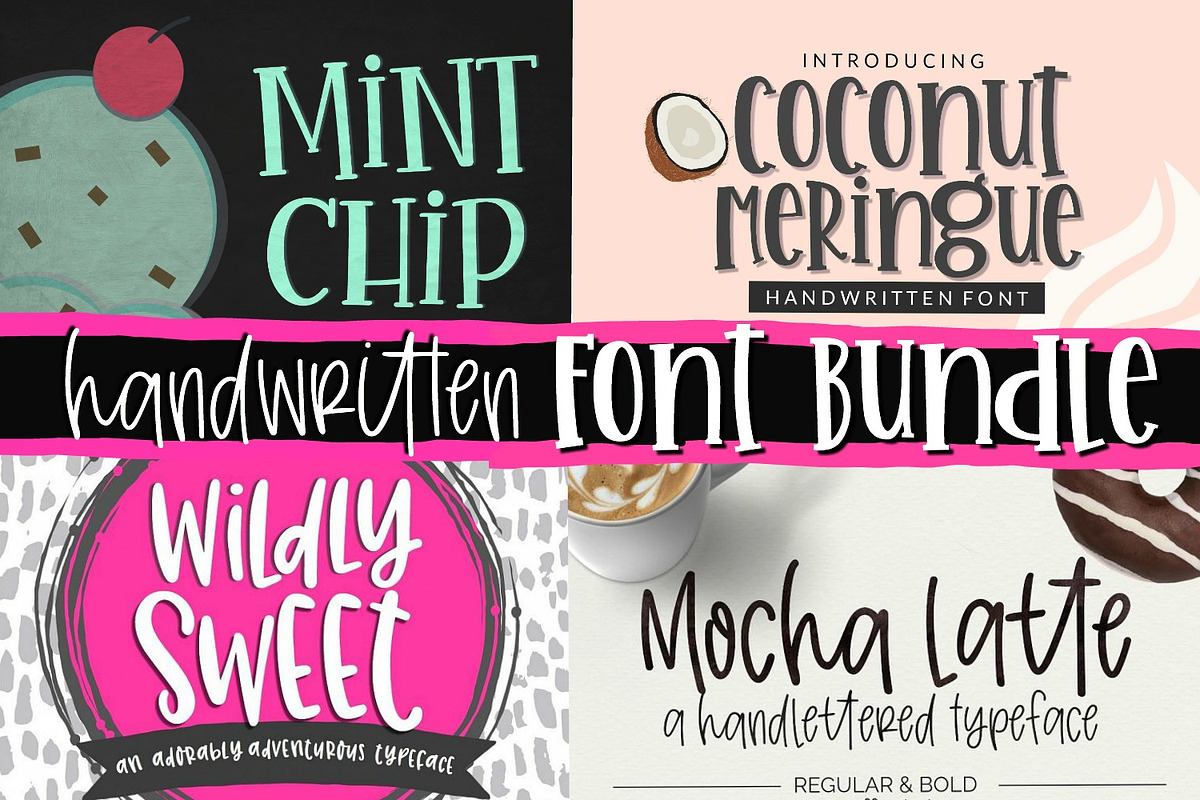
Handwritten Font Bundle Mini Pack Free Download is a delightful collection of charming and expressive script fonts, perfect for adding a personal touch to your designs. This mini bundle includes a curated selection of hand-drawn typefaces ideal for greeting cards, planners, wedding invites, product packaging, social media posts, and DIY projects.
Each font in the pack features its own unique personality—ranging from cute and bubbly to modern and elegant. Fully compatible with Mac and Windows, the bundle offers uppercase and lowercase letters, punctuation, and multilingual support for versatile use.